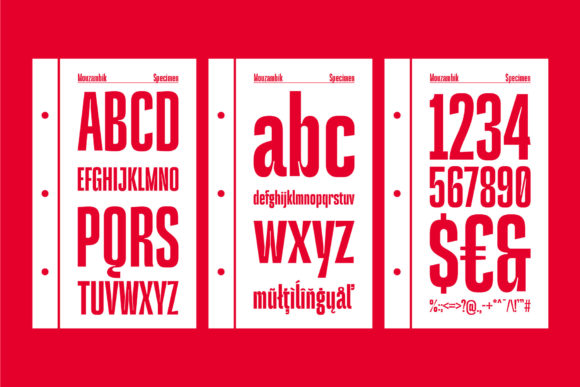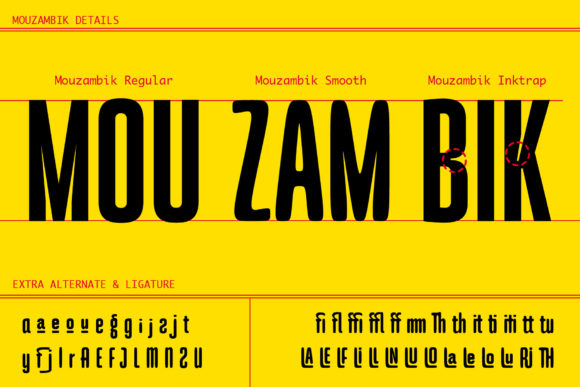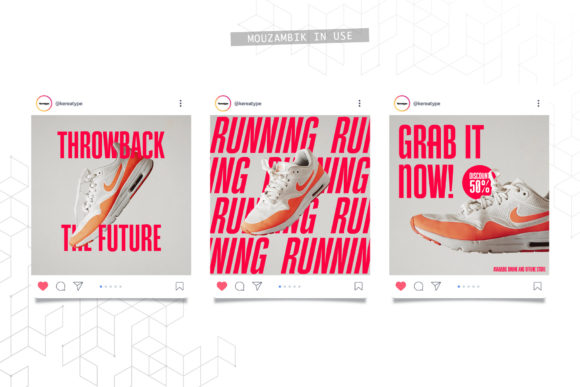
Introduction to Mouzambik Font
As a designer, you’ve likely found yourself staring at a blank canvas, trying to come up with the perfect headline or title for your project. The blank space seems to stare back, daring you to bring it to life. This is where the Mouzambik Font comes in – a game-changing design resource that can breathe new life into even the most mundane of creative projects.
With its unique blend of style and sophistication, Mouzambik Font is the perfect addition to any high-quality design. Whether you’re working on a billboard, magazine, or website, this versatile font is sure to make your project stand out from the rest. And the best part? With tons of ligatures, alternates, and other features to choose from, you can customize your design to fit your unique vision – all on a transparent background, no less.
Key Features of Mouzambik Font
- High-quality design resource ideal for creative projects, offering a unique and modern look.
- Designed with a focus on readability and versatility, making it suitable for a wide range of applications.
- Includes multiple weights and styles, providing designers with a comprehensive set of options for their creative project.
- Resolution-independent, ensuring that the font remains crisp and clear at various sizes and resolutions.
Honest Review: Mouzambik Font
I recently stumbled upon the Mouzambik Font and was excited to give it a try in my creative project. The first thing that caught my attention was its unique and quirky design, which I thought would be perfect for adding some personality to my design resource.
Here’s what works well about the Mouzambik Font:
- ✨ It’s a high-quality font with clear and crisp lines, making it perfect for printing or digital use.
- ⚠️ The font might be too quirky for some design projects, so it’s essential to use it sparingly.
- ⚠️ It’s not suitable for formal or professional projects, as it may come across as too playful.
Overall, I think the Mouzambik Font is a great addition to any designer’s toolkit. While it may not be perfect for every project, it’s a fantastic option for those looking to add some creativity and personality to their design resource.
Mouzambik Font is a high-quality design resource ideal for creative projects that require a unique and stylish touch. This font features a transparent background, making it perfect for overlays and text effects.
Tips for Getting the Most Out of Mouzambik Font
To get the most out of Mouzambik Font, use it in combination with other design elements to create a cohesive and visually appealing design. Experiment with different font sizes, colors, and effects to add depth and interest to your project.
Common Use Cases for Mouzambik Font
Mouzambik Font is perfect for use in a variety of creative projects, including social media graphics, blog posts, and marketing materials. Its high-quality design and transparent background make it ideal for overlays and text effects.